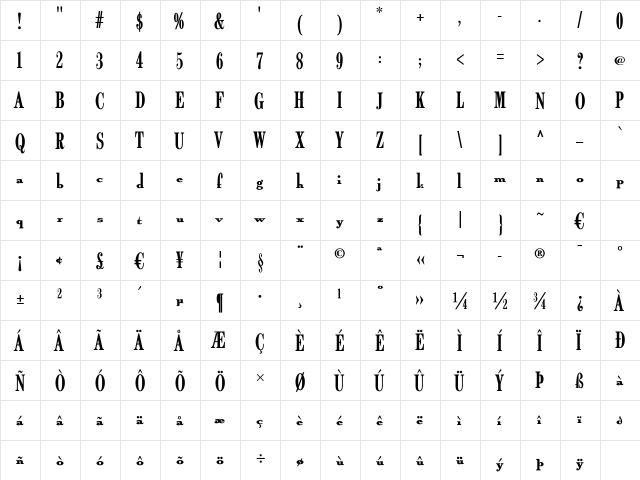
NurfStar Regular Font Preview
NurfStar Regular
NurfStar Regular Font Details
Design Context for NurfStar Typeface
NurfStar is a composed and adaptable typeface that performs quietly and consistently across a wide range of design contexts.